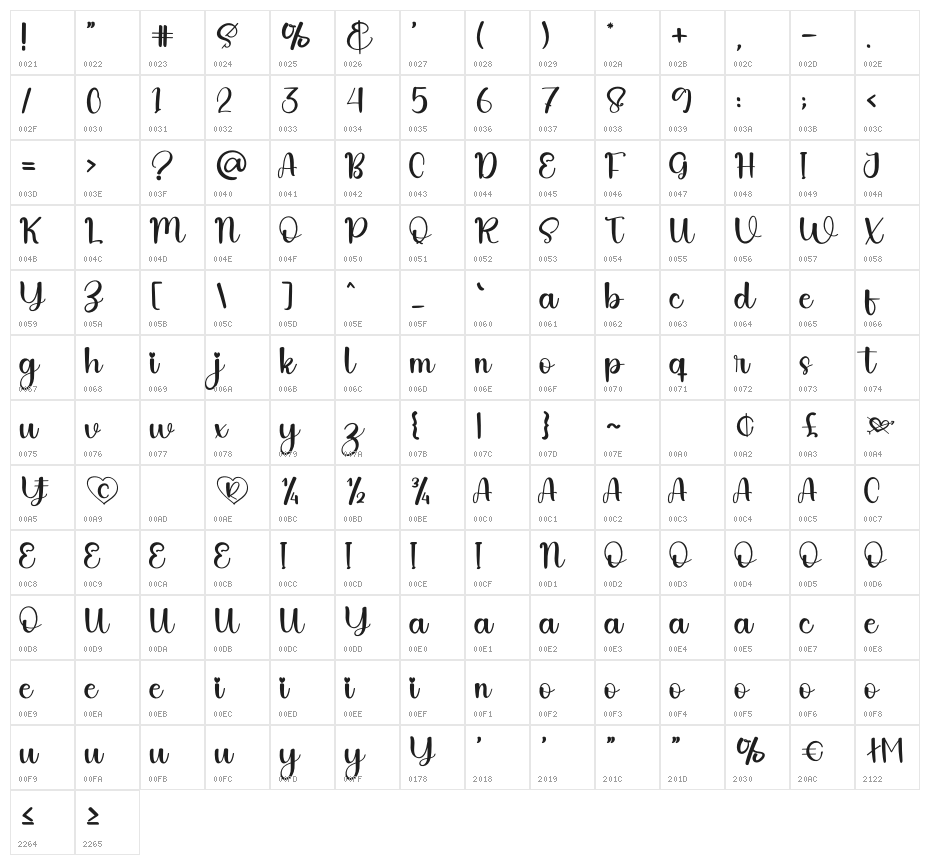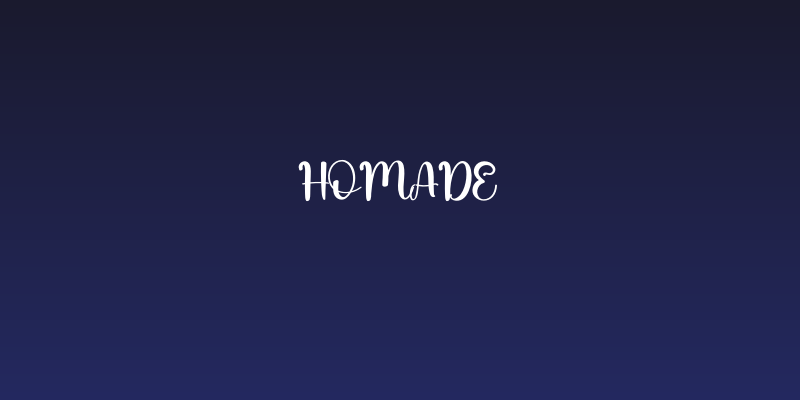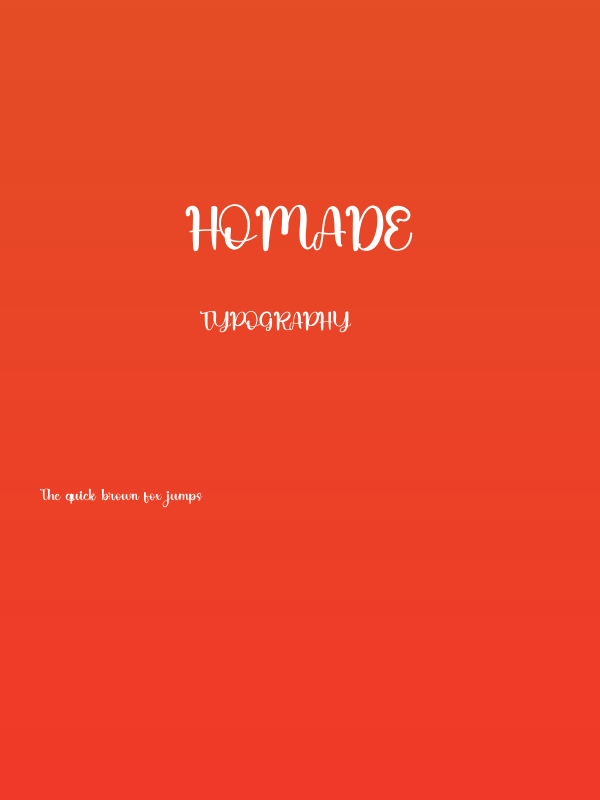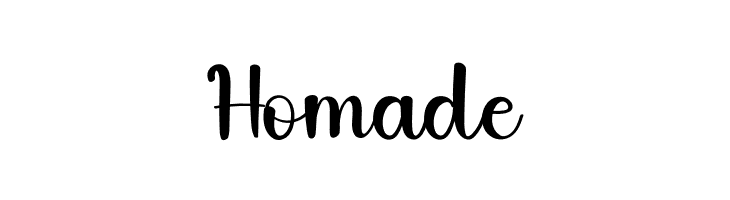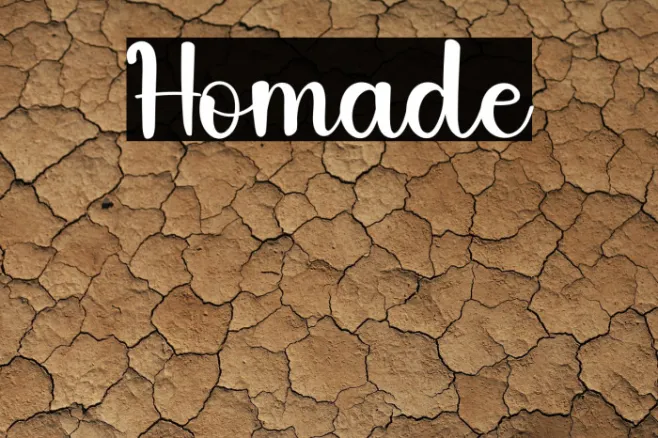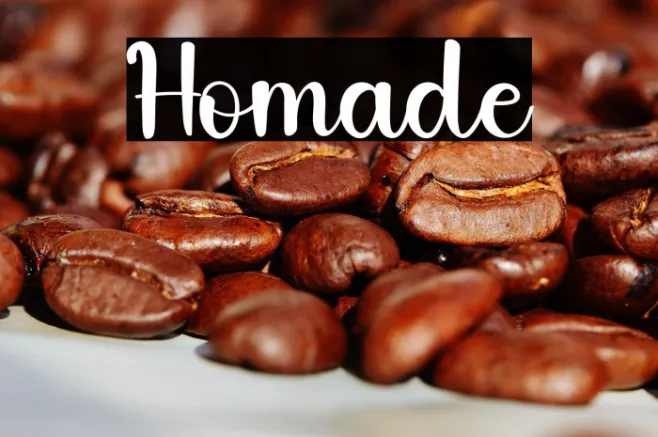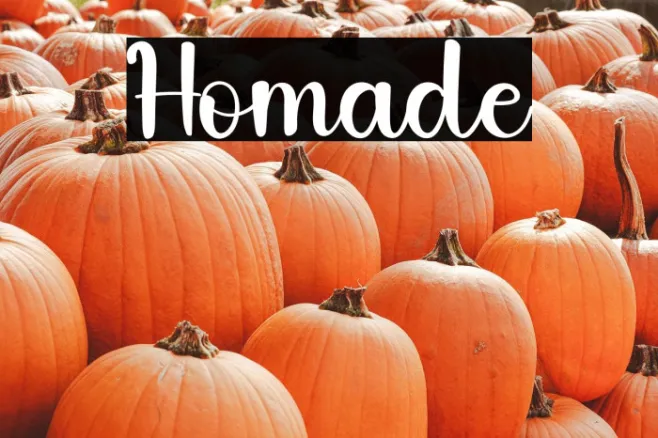
Homade Font
Homade Description
A playful and decorative script font with a handwritten style, featuring smooth curves and a casual, friendly appearance.
| Use Case | Logos, Headlines |
| Proposed Projects | Greeting cards, invitations, playful branding. |